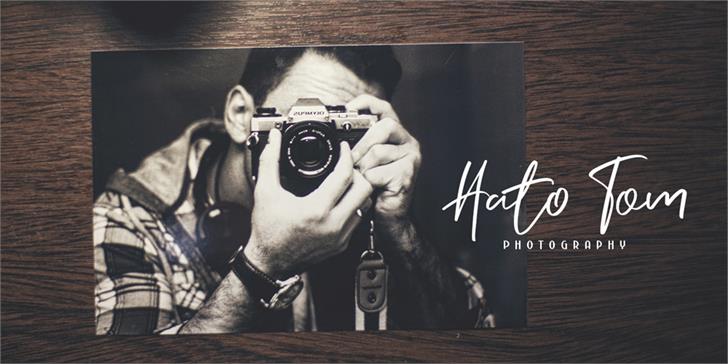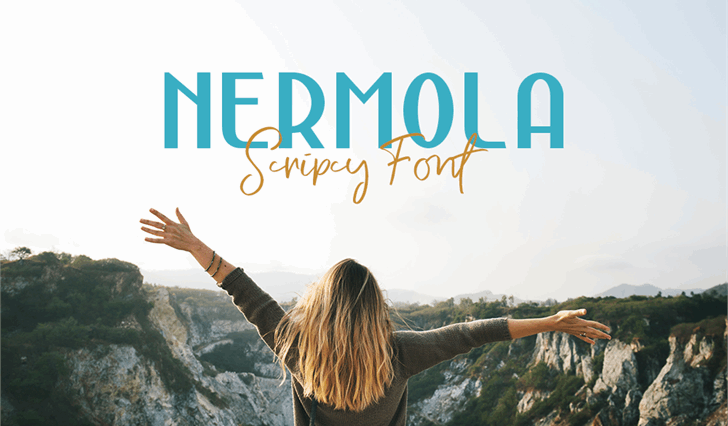
Nermola Script Font
NERMOLA Scripcy font on sans serif has characteristic that are unique, elegant, formal and assertive. It is suitable for header or sub header of a text. On the uppercase it looks very unique and elegant. While the script letters also have a unique and natural characteristic. In addition it has several alternatives that can be replaced on the opentype option.
| Designer Name: | Alit Design |